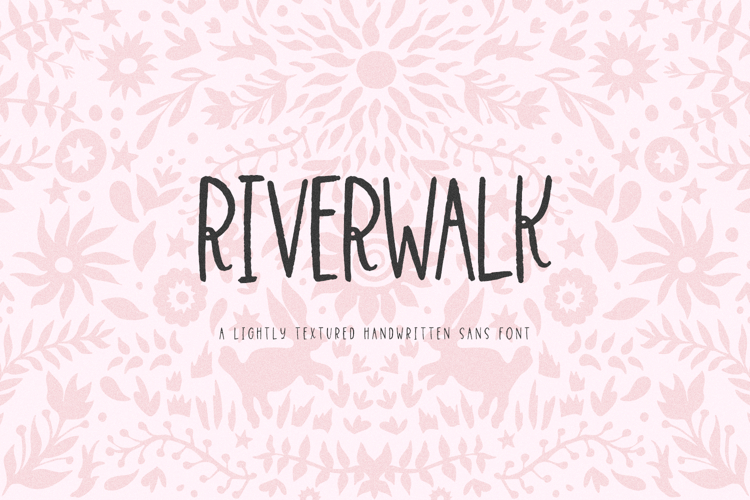
Riverwalk Sans
Riverwalk Sans is a lightly textured all caps sans font. It’s neat & tidy, making it perfect for logos & branding, greeting cards, painted banners, digital planners, note-taking apps, Canva, Cricut projects, Silhouette projects, designing SVG files, laser cutting projects, & more.
- all caps characters programmed into upper & lowercase slots